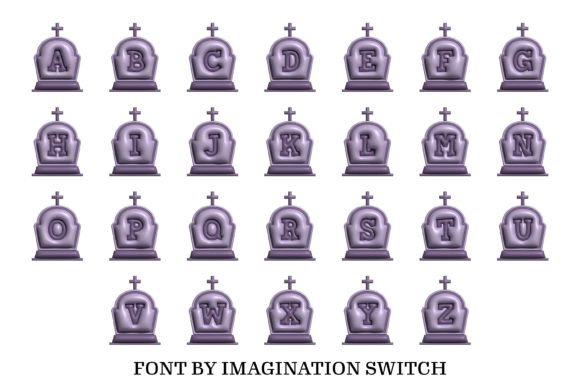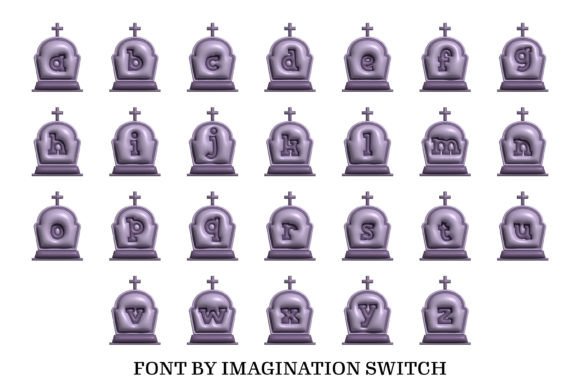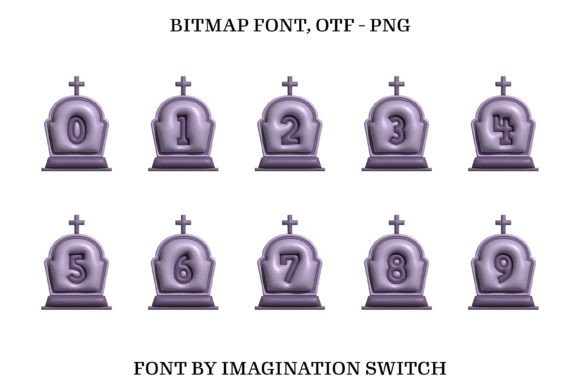
Cemetery Inflated Font: Elevate Your Designs with a Unique 3D Typographic Experience
In the realm of typography, the Cemetery Inflated font stands out as a remarkable creation that injects dimension and vitality into each of its characters. This innovative font is designed to captivate audiences with its engaging and dynamic appearance, achieved through the clever use of color and a 3D style that masterfully creates an illusion of depth in the text. For designers and crafters looking to elevate their projects with a touch of uniqueness, Cemetery Inflated is an excellent choice.
The Distinctive Features of Cemetery Inflated Font
Cemetery Inflated is not just another font; it’s a typographic experience. Its distinctive features include:
- 3D Illusion: The font’s design creates a compelling illusion of depth, making the text appear as if it’s inflated and popping out of the page.
- Clever Use of Color: The strategic application of color enhances the 3D effect, adding an extra layer of dynamism and engagement to the text.
- Unique Visual Sensation: The combination of the 3D style and color usage provides a unique visual experience, setting it apart from traditional flat fonts.
Applications of Cemetery Inflated Font
The versatility of Cemetery Inflated makes it suitable for a wide range of applications, including:
- Graphic Design: Use Cemetery Inflated to add a striking element to your posters, flyers, and brochures.
- Digital Media: Enhance your social media posts, website headers, and digital advertisements with this eye-catching font.
- Crafting and DIY Projects: Add a professional and creative touch to your handmade cards, scrapbooks, and other craft projects.
- Signage and Displays: Create attention-grabbing signs and displays for events, exhibitions, or store promotions.
Tips for Using Cemetery Inflated Font Effectively
To maximize the impact of Cemetery Inflated, consider the following tips:
- Color Choice: Experiment with different color schemes to find the perfect combination that suits your project’s theme and enhances the 3D effect.
- Contextual Relevance: Ensure that the font aligns with the overall aesthetic and message of your project.
- Legibility: While the font is designed to stand out, make sure it remains legible, especially for longer texts.
- Combination with Other Fonts: Don’t be afraid to pair Cemetery Inflated with complementary fonts to create visual interest and hierarchy.
Cemetery Inflated font is a game-changer for designers and crafters seeking to add a unique and captivating element to their projects. Its distinctive 3D style and clever use of color make it an excellent choice for those looking to create engaging and dynamic text. By understanding its features, applications, and tips for effective use, you can unlock the full potential of Cemetery Inflated and elevate your designs to new heights.
Whether you’re working on a graphic design project, crafting a handmade card, or creating digital content, Cemetery Inflated is sure to leave a lasting impression on your audience. So, why settle for ordinary when you can create something extraordinary with Cemetery Inflated font?